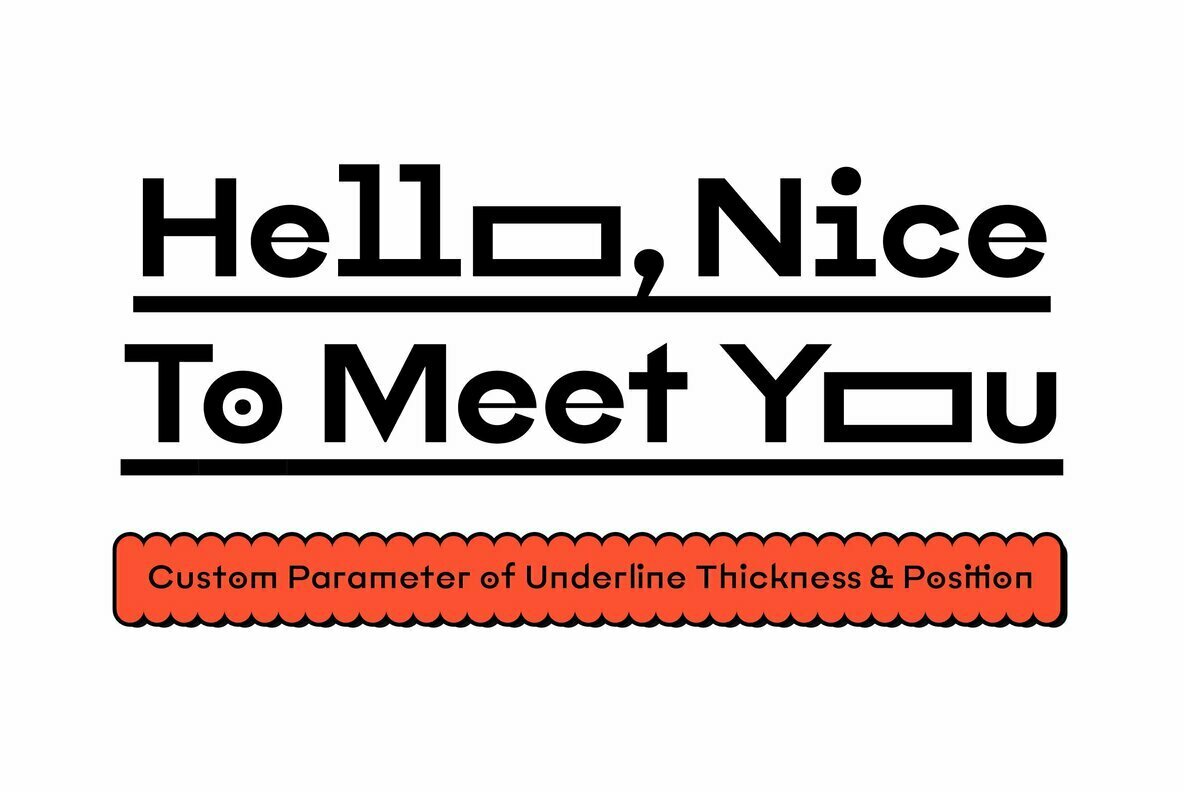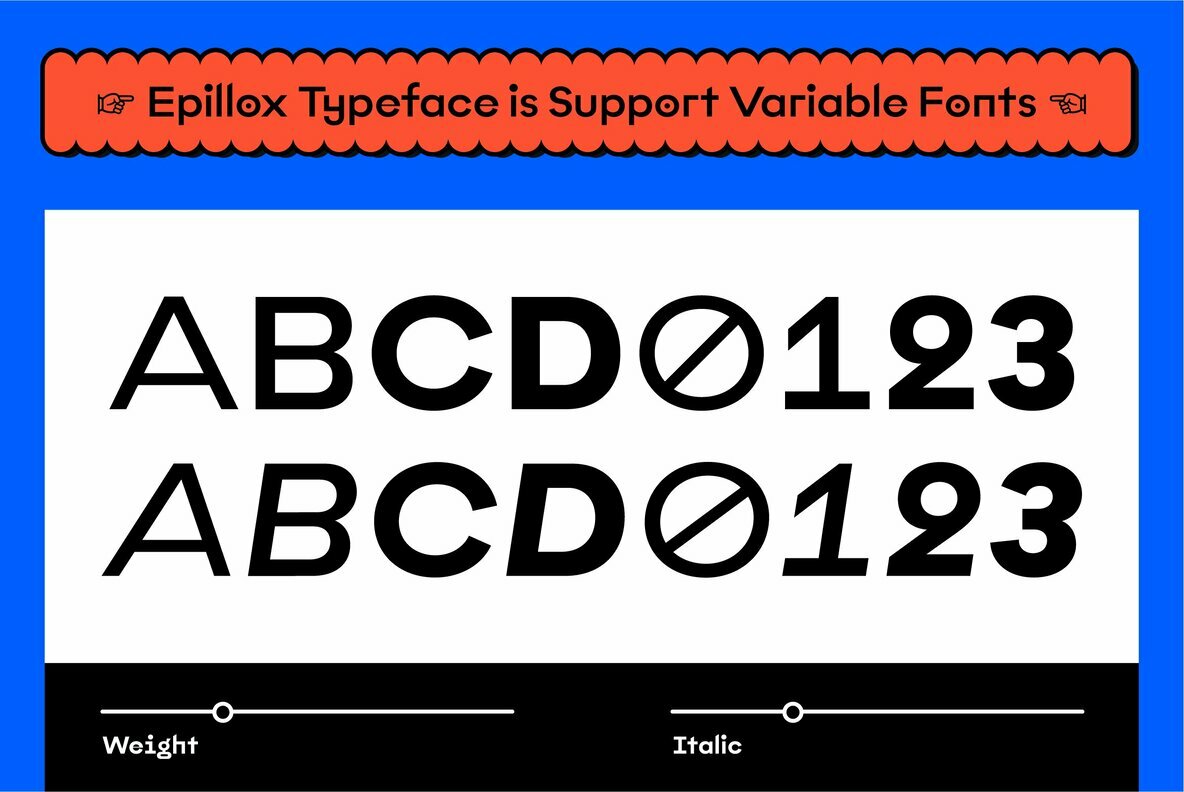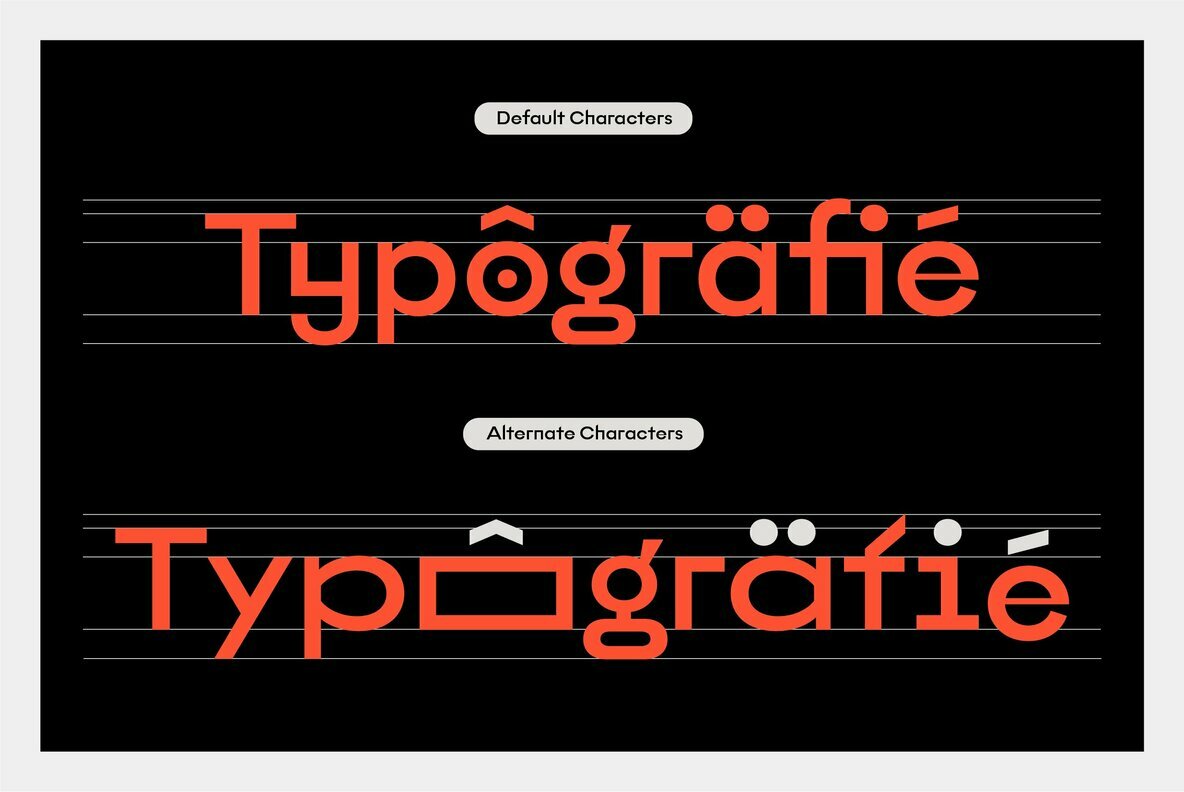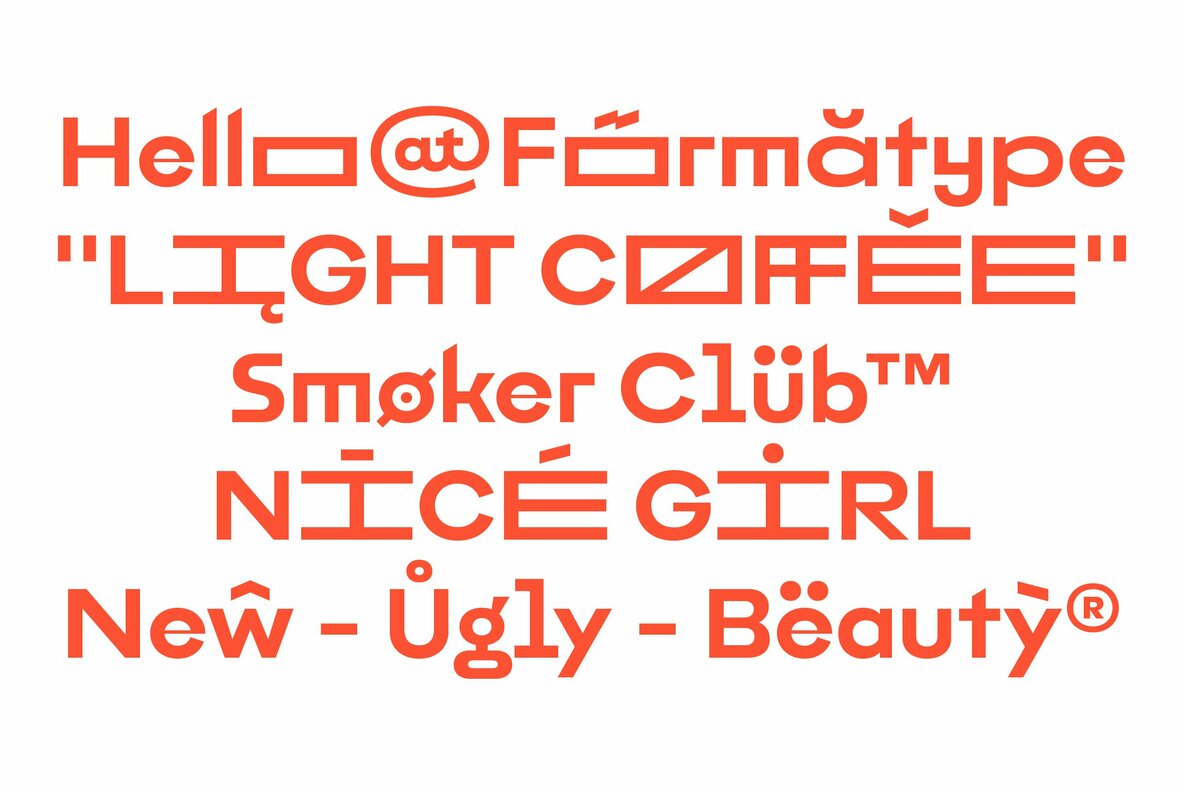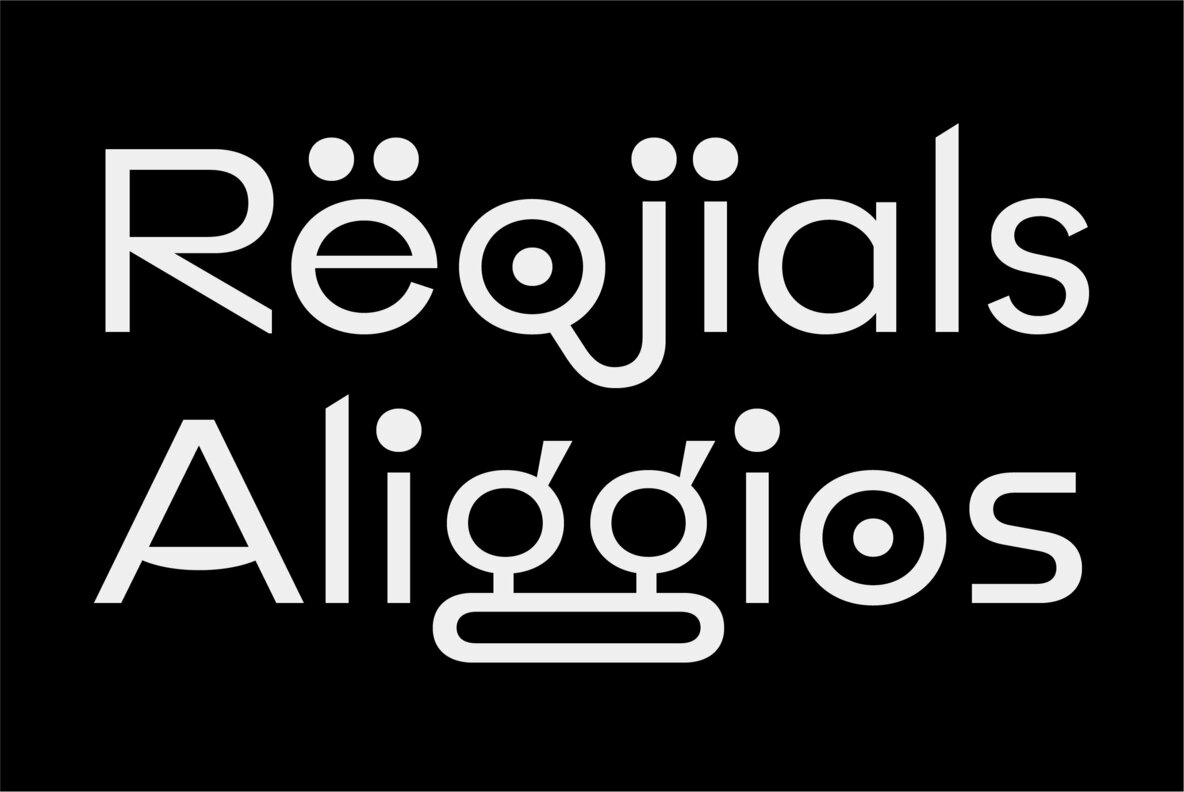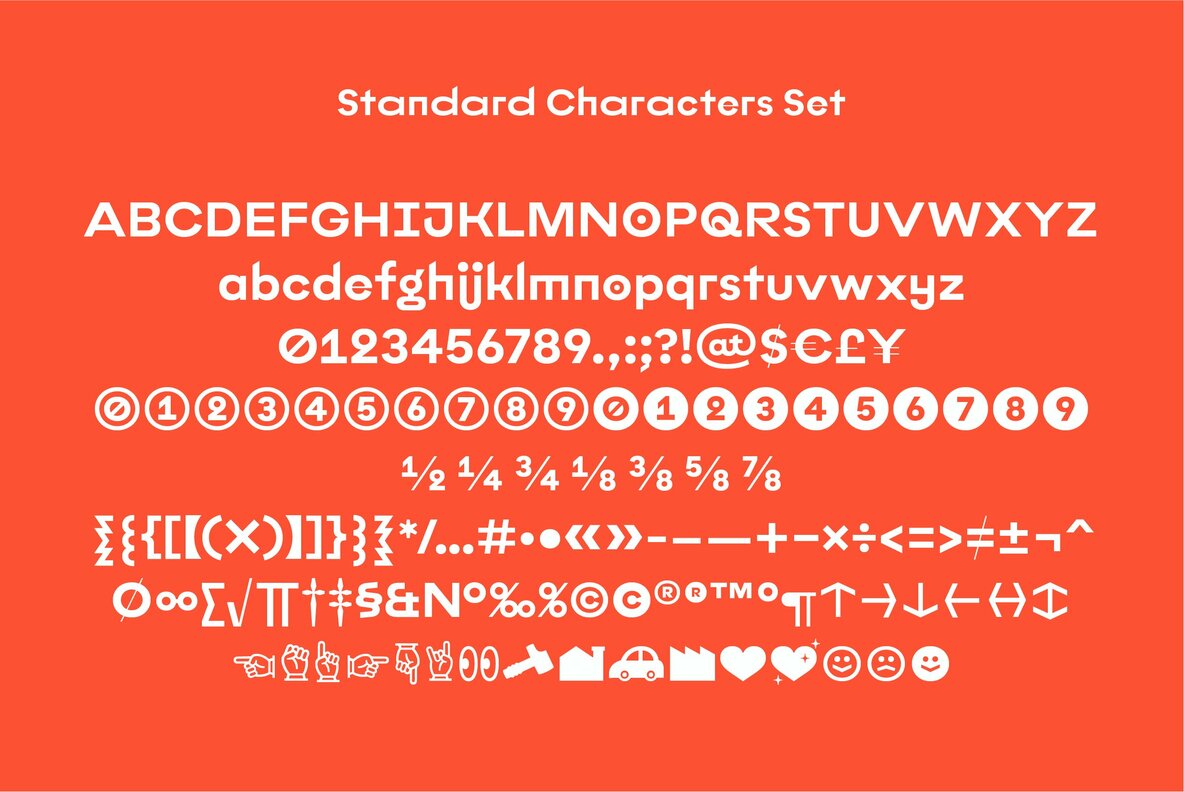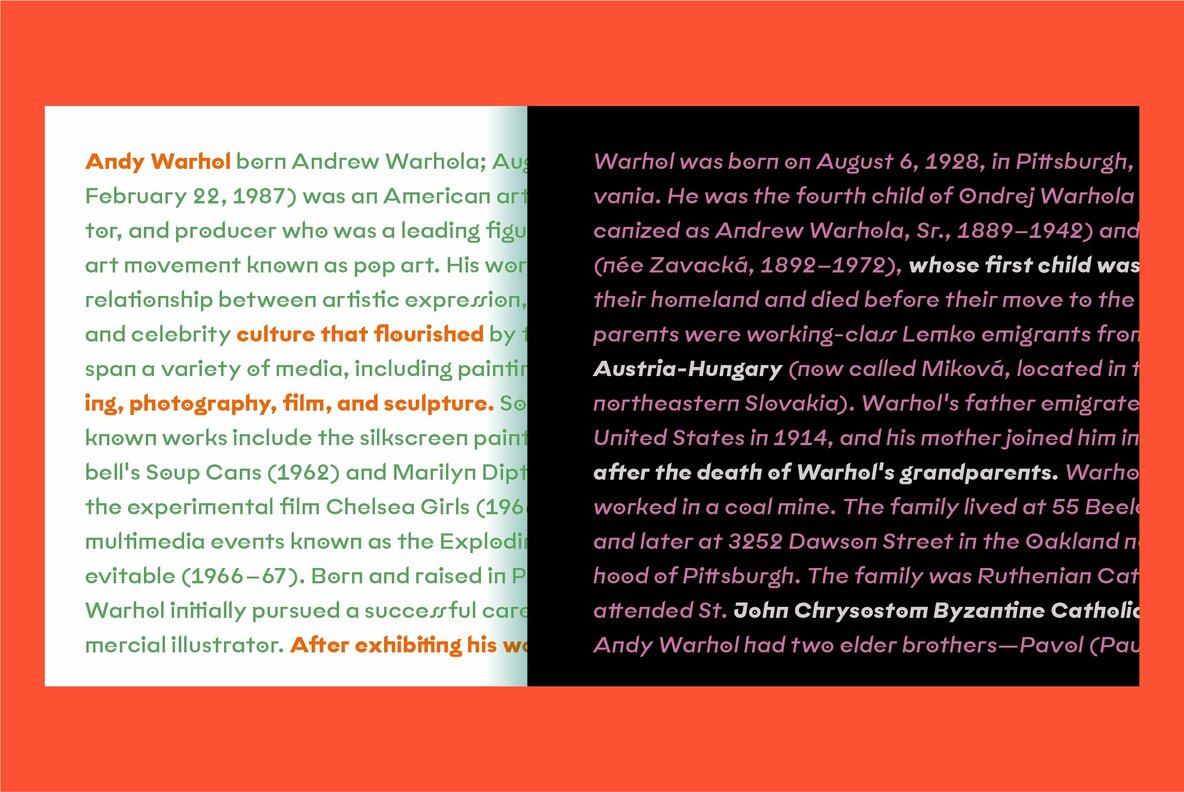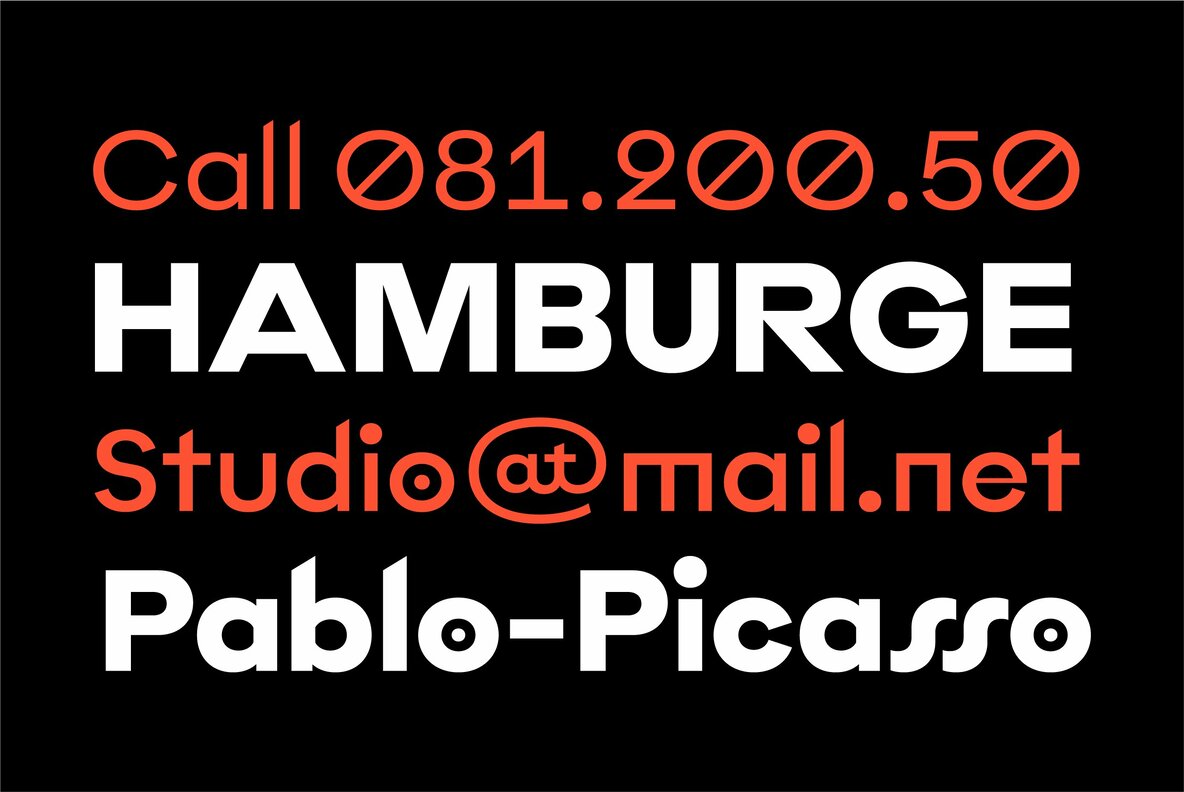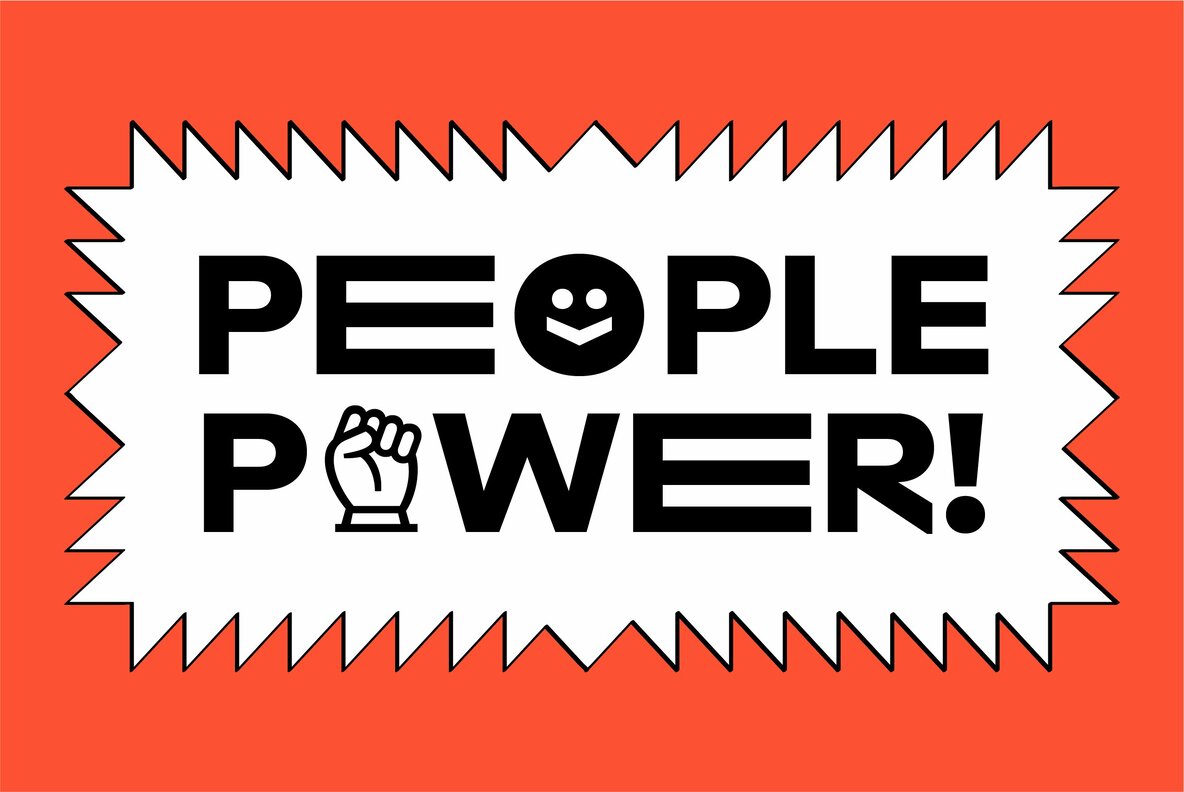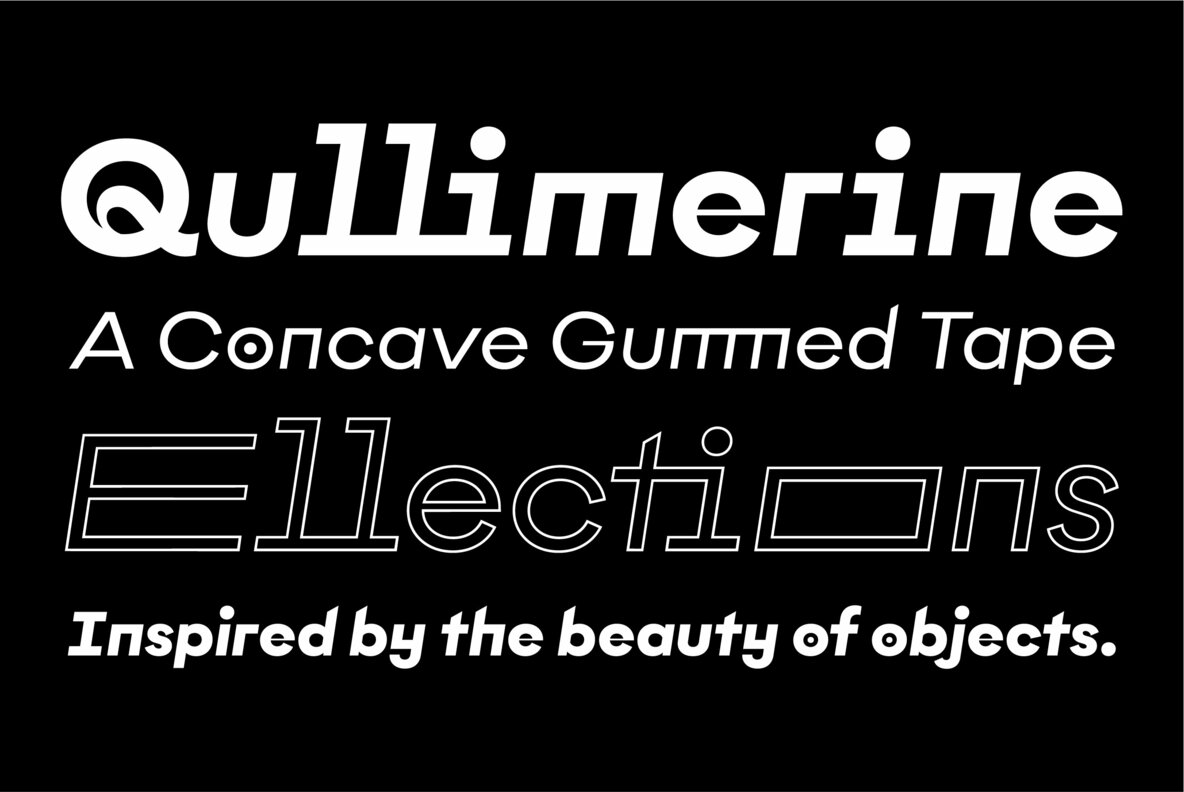
Epillox Font
Epillox is a modern, contemporary, geometric typeface, with a strong personality and more unique with maximum emotional. It is inspired by modern contemporary display sans typefaces. We spent a lot of time, especially in the italic, to draw with high-quality compensation for all circles and strokes to become fresher and cleaner from the geometric point of view.
As an OpenType family it includes 51 alternate characters and ligatures, plus extra characters. The most interesting is about Stylistic set (ss02) have a more powerful characters the combination of original and wide characters.
Epillox also supports other OpenType such as: Ligatures, Discretionary Ligatures, ordinal numbers, case sensitive, fraction, supscript, superscript, ss01, ss02, ss03, ss04, ss05, ss08
Epillox contains 695 characters supports over — 200 Latin-based languages. Other Essential sets are composed of alternative glyphs. its great in headline, titles and short paragraphs (Poster, Signage, Logo, Branding, cover and etc)
A Variable Font is also included in the family.